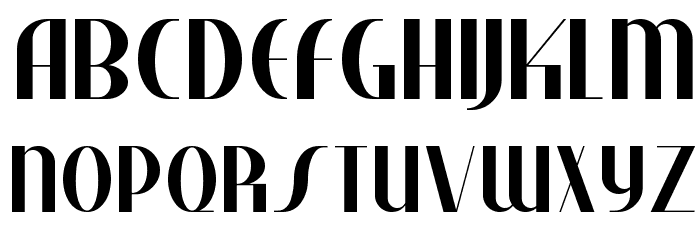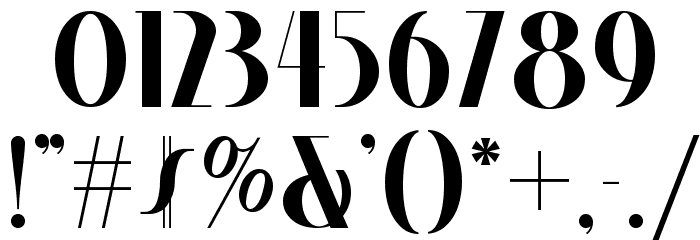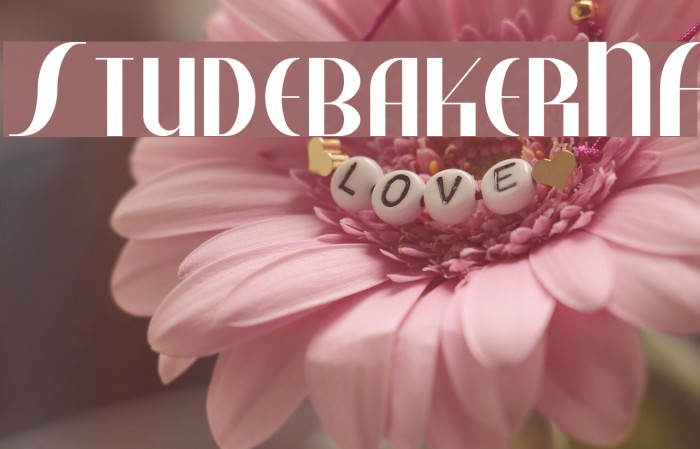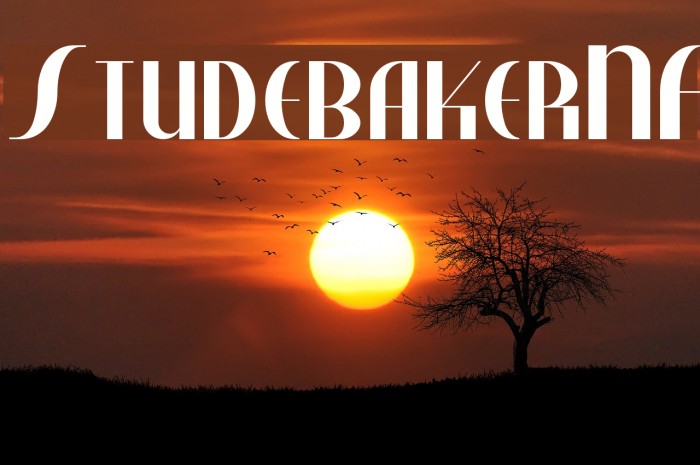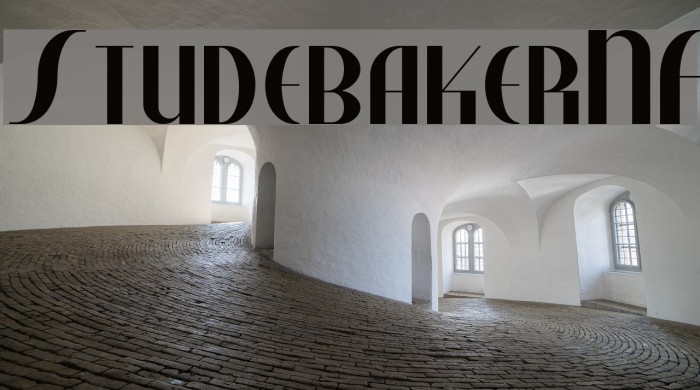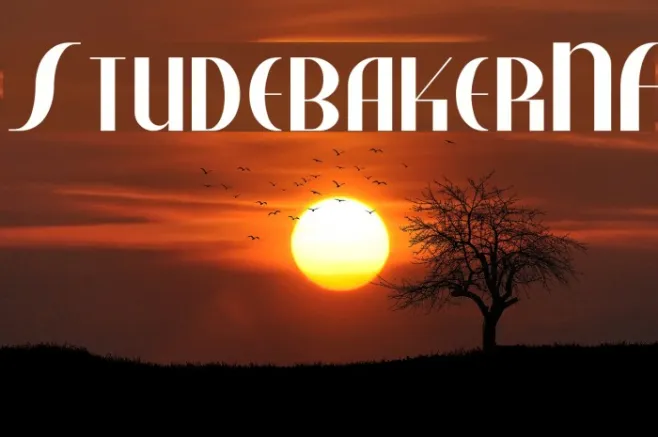
StudebakerNF Font
This font features a unique blend of Art Deco and modern aesthetics, characterized by its bold, geometric shapes and high contrast between thick and thin strokes. The uppercase letters are particularly striking, with a tall, narrow form that gives a sense of elegance and sophistication. The lowercase letters maintain a consistent style, complementing the uppercase with their own distinct flair. Numbers and special characters follow the same design principles, ensuring a cohesive look across all text elements. The font's overall style is both decorative and functional, making it suitable for a variety of design applications.
A bold, geometric font with Art Deco influences and high contrast strokes.
- Proposed Projects: Ideal for branding, posters, and editorial design where a touch of elegance and modernity is desired.